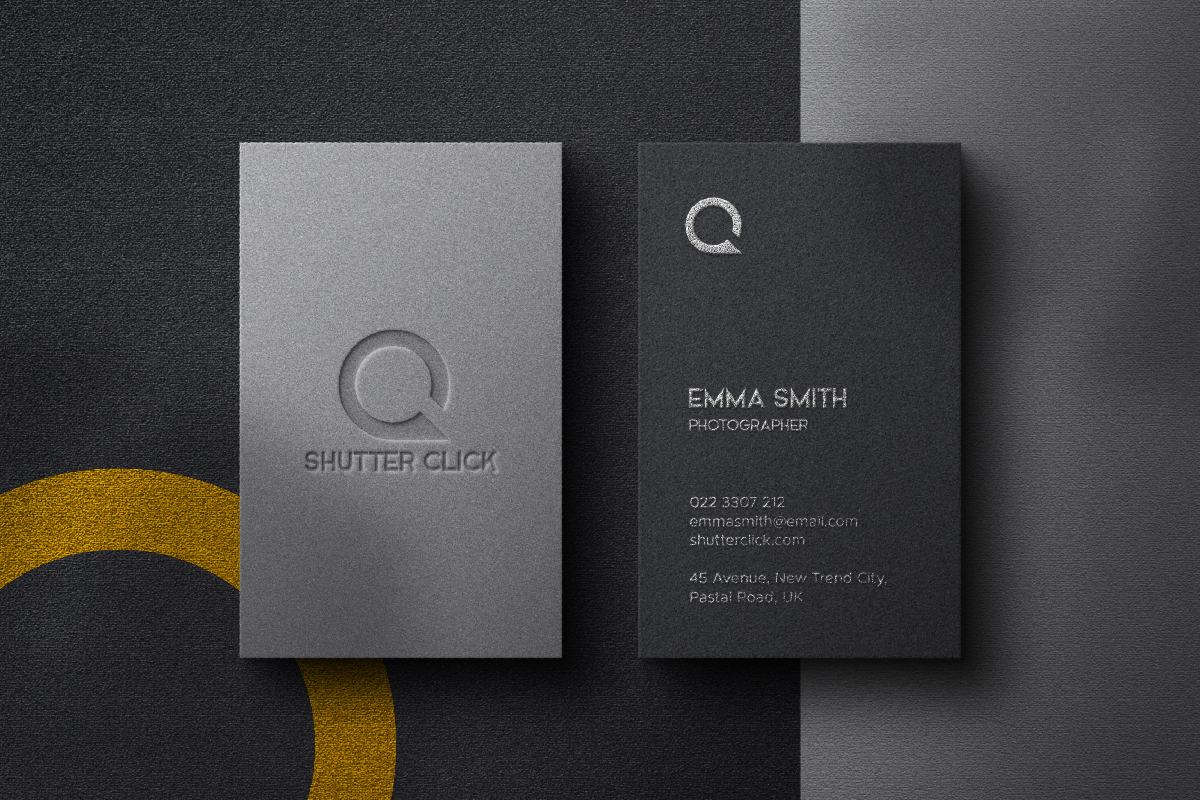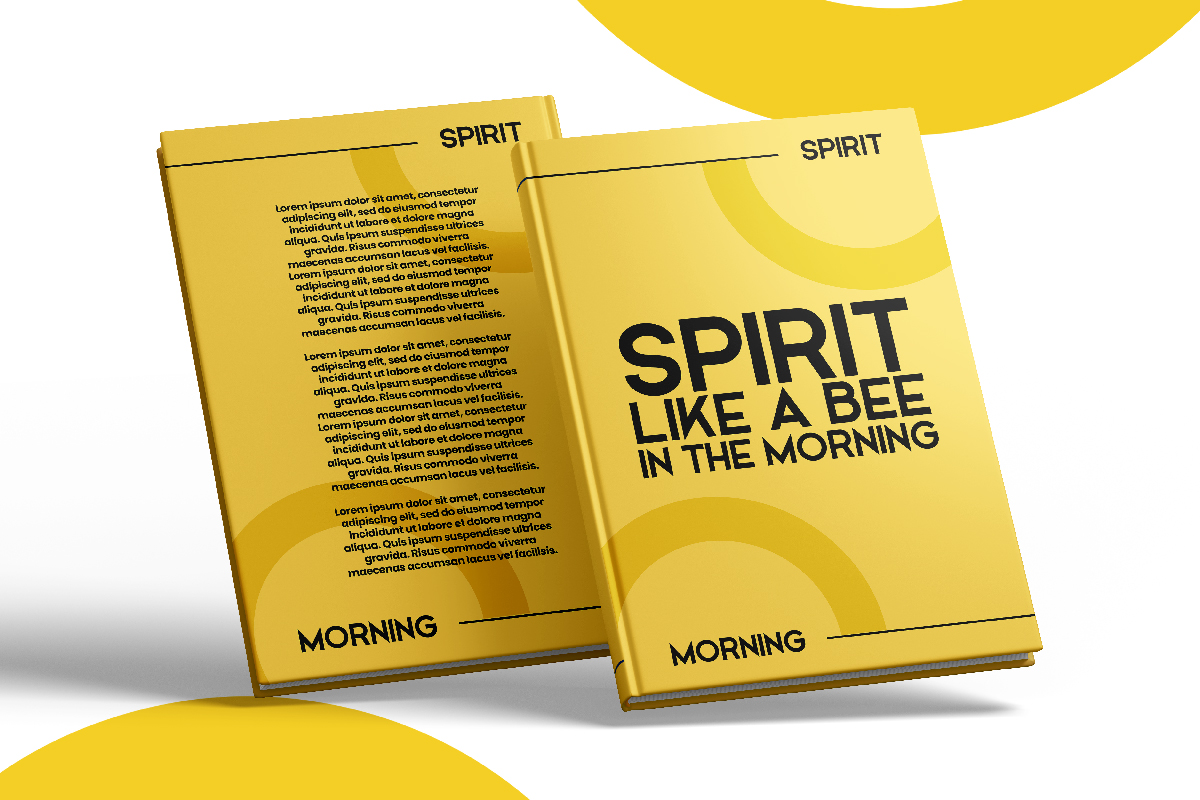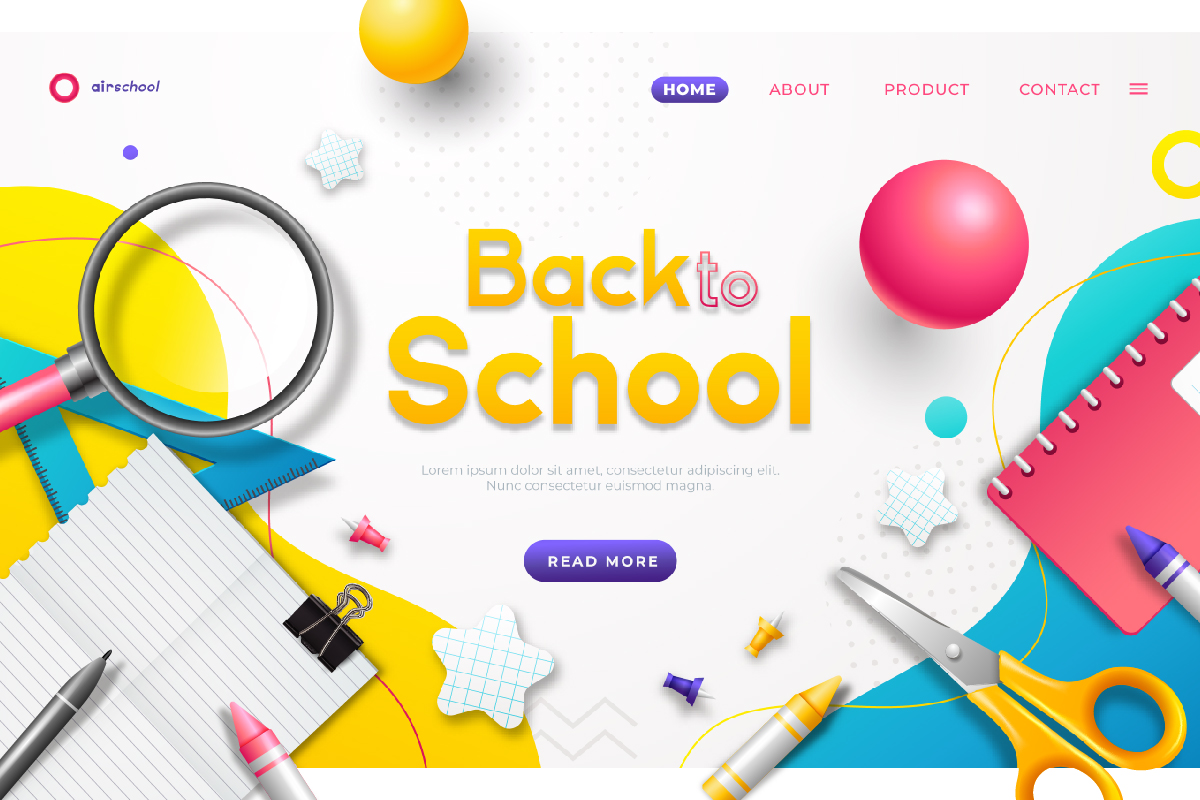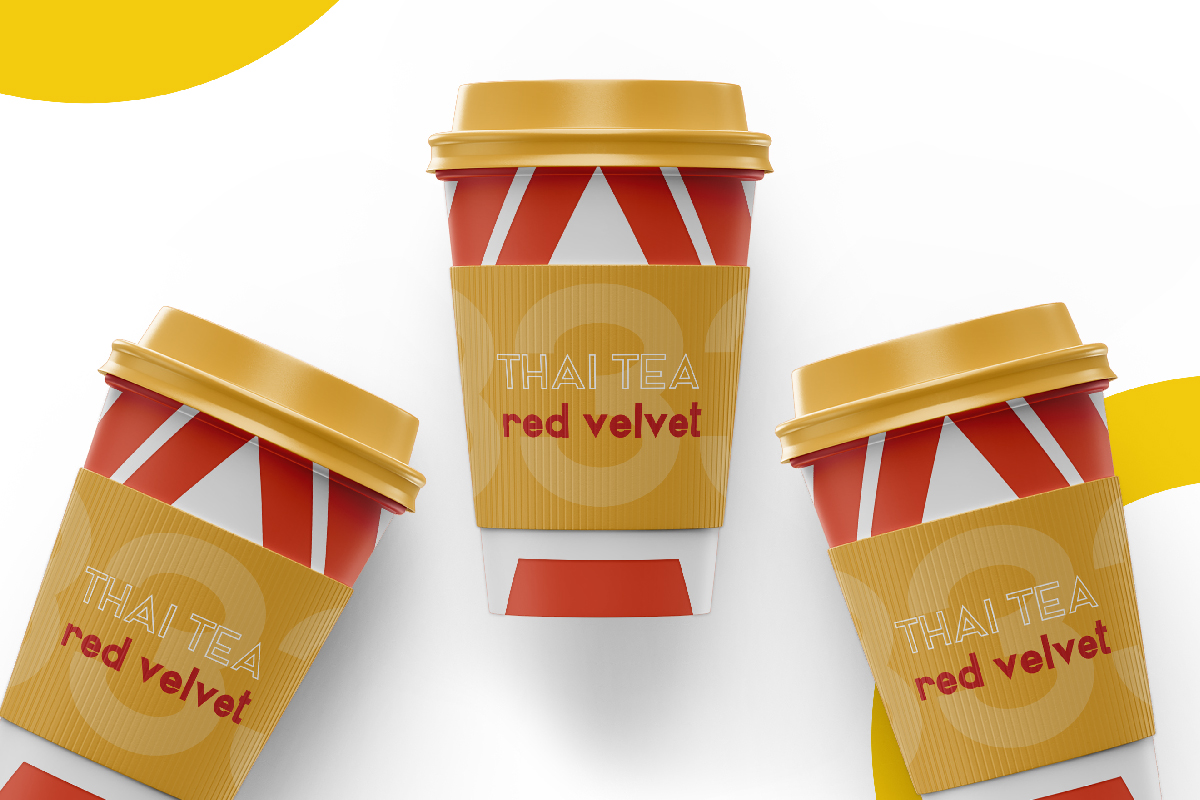
Airframe Font
Airframe Sans Serif Font
This is a modern sans serif typeface with casual style. The style of this font are elegant, modern, stylish, minimal and simple style. This font was handcrafted from our Studio here in, Indonesia. The artists/designers of this beautiful typeface is Renata and Sarah Suci. Airframe Font will be great for any projects including : branding, logo, stationery, business card, signage, flyer, brochure etc. The font comes with five different styles : Regular, Bold, Outline, Bold-italic and Italic